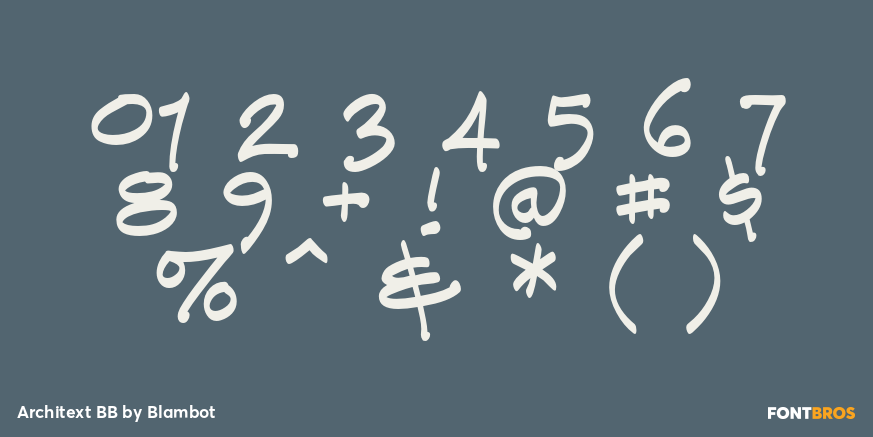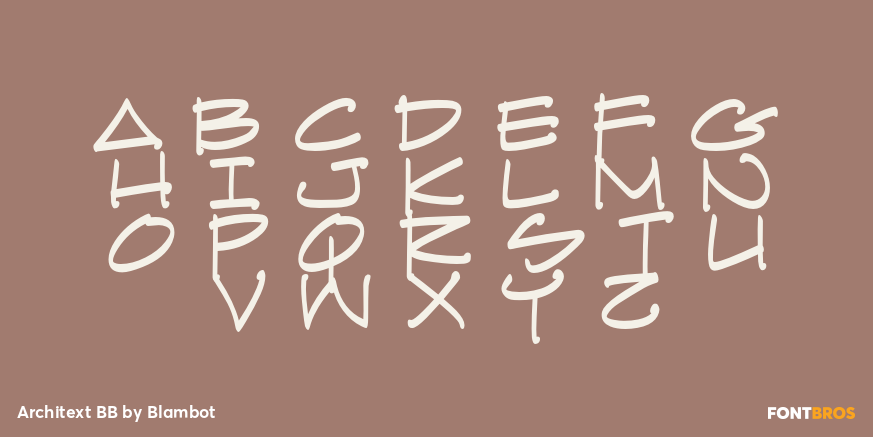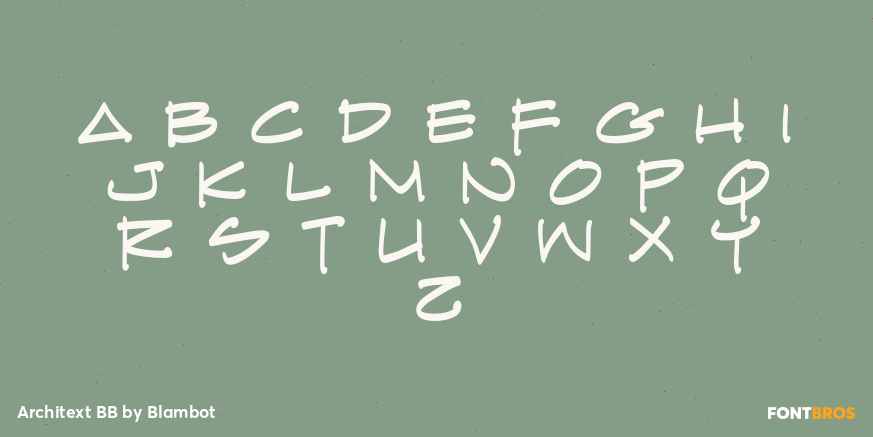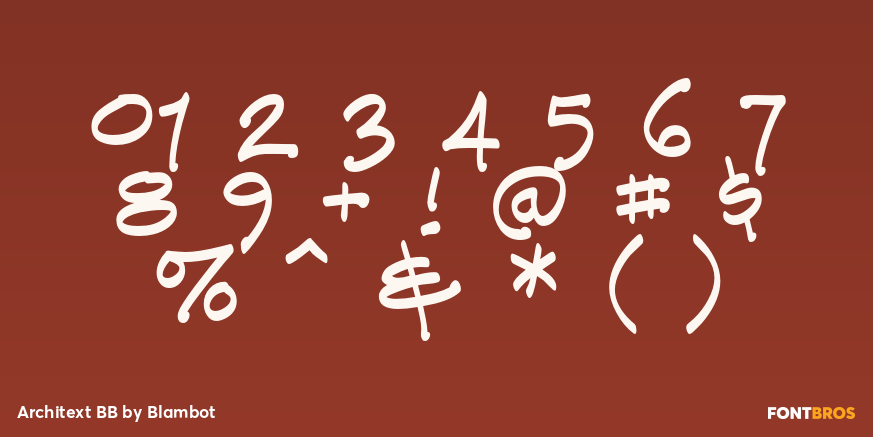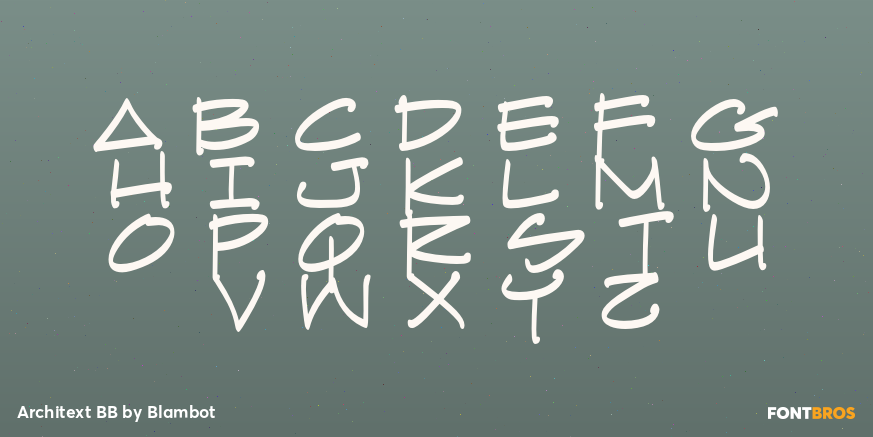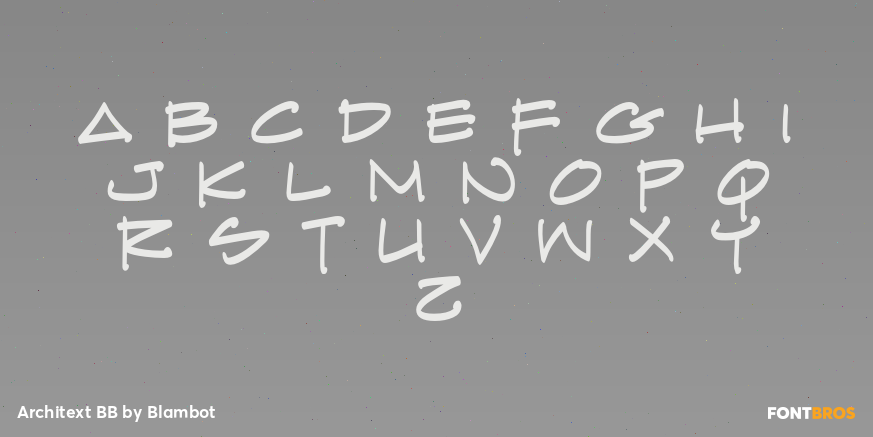
Architext BB
Font Family by Blambot
Patterned after the unique lettering style of architects and draftsmen.
This font family includes a nice compliment of European characters as well as the drafting symbol for ?center line? when you hit the ` key.
Comes with Regular, Italic and Lefty (a slight leftward slant like left handed architects!)